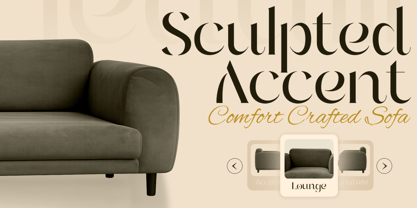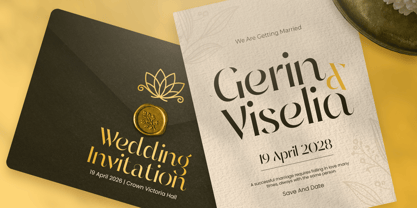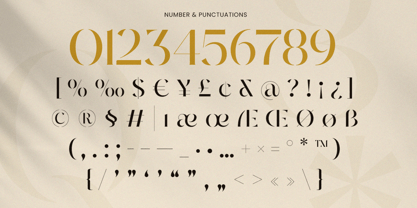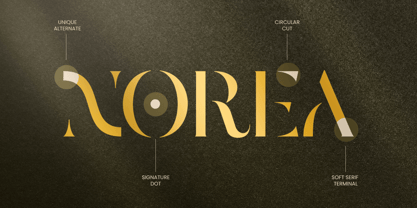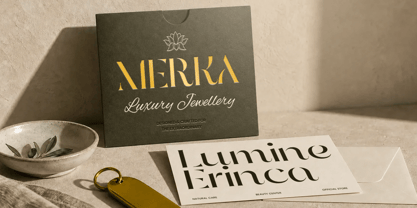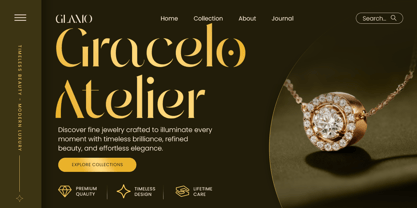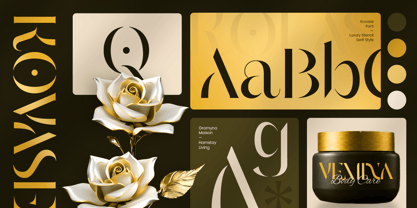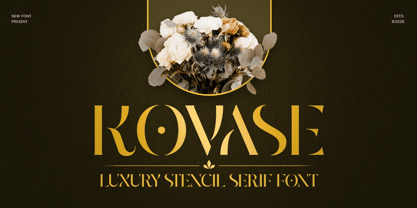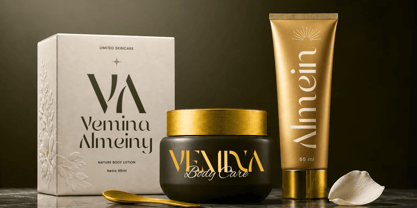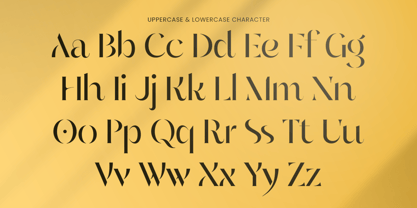
Kovase
Die Schriftfamilie Kovase wurde von Zamroni Hamzah entworfen und von Sensatype Studio veröffentlicht. Kovase enthält 1 Stile. Mehr über diese Familie
KOVASE is a luxury stencil serif font crafted to combine refined elegance with distinctive stencil-inspired details. Its sophisticated serif structure, graceful proportions, and stylish cutout forms create a premium visual character that feels modern, exclusive, and timeless.
Perfect for luxury branding, fashion logos, beauty packaging, perfume labels, editorial headlines, wedding stationery, and upscale advertising, KOVASE delivers a memorable presence across sophisticated creative projects. Its luxury serif font aesthetic also works beautifully for magazine covers, posters, signage, social media graphics, and premium product identities.
The combination of elegant serif letterforms and contemporary stencil styling gives KOVASE a distinctive personality for designers seeking something beyond a traditional luxury typeface. From high-end brand identity and packaging to print campaigns and digital layouts, it brings sophistication and artistic character to every composition.
KOVASE – Luxury Stencil Serif Features
• Elegant serif letterforms with distinctive stencil details
• Sophisticated style for luxury and premium branding
• Ideal for logos, fashion, beauty, perfume, and packaging
• Perfect for editorial headlines, posters, and signage
• Includes uppercase, lowercase, numerals, and punctuation
• OpenType features for creative typographic flexibility
• Suitable for both digital and print projects
• Great for social media, advertising, and brand identity
Multilingual Support
Designer: Zamroni Hamzah
Foundry: Sensatype Studio